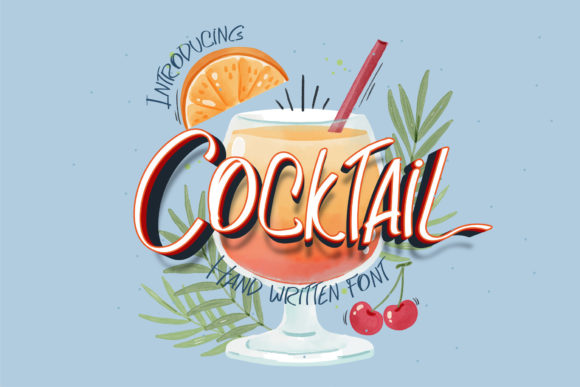
Introducing Cocktail Font, the Best Font for Food Websites! Created by the talented team at Nobu Collections, this font is not your average script font. It's a friendly, neat, and informal script that will add a touch of charm and personality to your designs.
With Cocktail Font, the possibilities are endless. Whether you're working on a food blog, a menu design, or a recipe book, this font will take your creations to the next level. Its unique style and attention to detail will captivate your audience and leave a lasting impression.
Imagine your website's visitors being greeted with the elegant curves and smooth strokes of Cocktail Font. It's like serving them a deliciously crafted cocktail that instantly grabs their attention and entices them to explore further. This font will make your content stand out from the crowd and create a memorable experience for your users.
Not only is Cocktail Font visually stunning, but it's also incredibly versatile. It effortlessly adapts to any layout, making it perfect for headlines, subheadings, body text, and even logos. Its legibility ensures that your message is clear and easy to read, while its playful nature adds a touch of excitement and fun.
But that's not all – Cocktail Font is also optimized for search engines. Its keyword-rich design ensures that your website ranks high in relevant searches, attracting more organic traffic and potential customers. By using the Best Font for Food Websites, you're not only enhancing the aesthetics of your site but also boosting its visibility and discoverability.
In conclusion, Cocktail Font is an essential addition to any font library. Its friendly and informal nature will add a touch of warmth and personality to your designs, while its versatility and search engine optimization make it a practical choice for any food-related project. So why wait? Download Cocktail Font today and let your creativity flow! Cheers to beautiful typography!